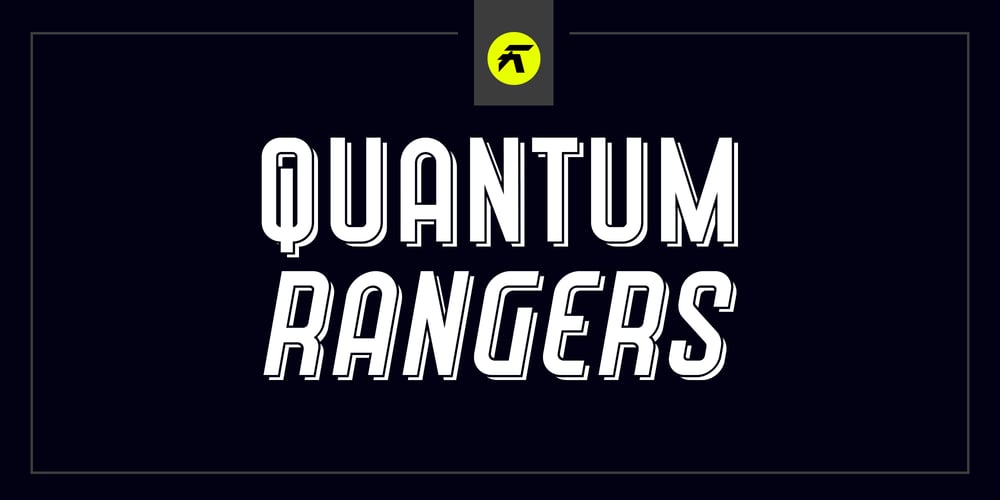
Quantum Rangers Font Family was designed by Muhammad Afif Ersya and published by Mevstory Studio. Quantum Rangers contains 2 styles and family package options. Quantum Rangers Font is a unique display typeface with a sporty, modern, adventurous edge. Created to give titles an extra punch, Quantum Rangers packs a full set of capital letters, numbers and punctuation. Whether it’s a show, sporting event, logo design, cafe, travel or football poster, Quantum Rangers is made to make an impact. Hope you enjoy the results!If there’s anything else you are unsure of feel free to pop me a message :)That’s it! Have fun using Quantum Rangers Typeface!!!Feel free to follow, like and share. Thanks so much for checking out my shop!